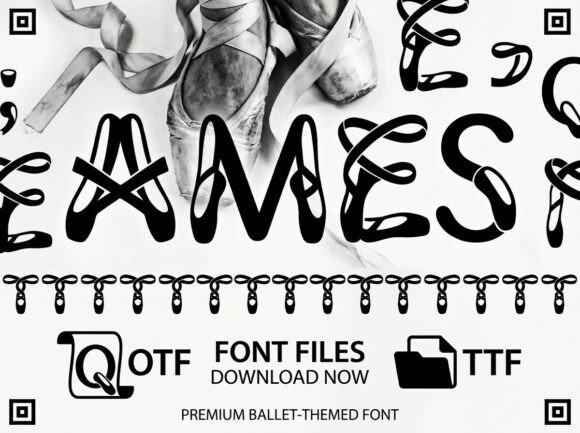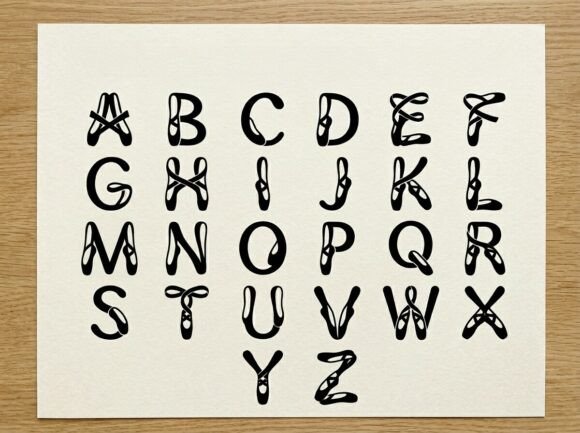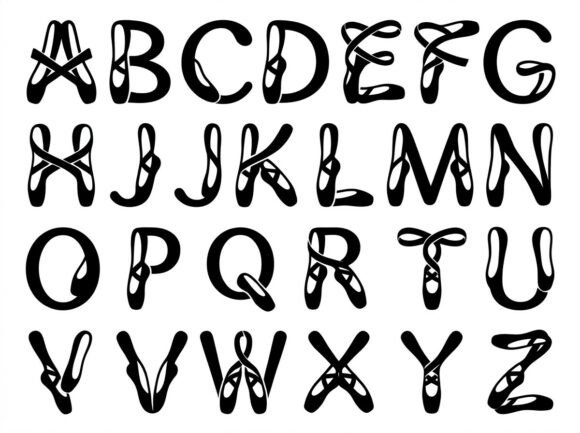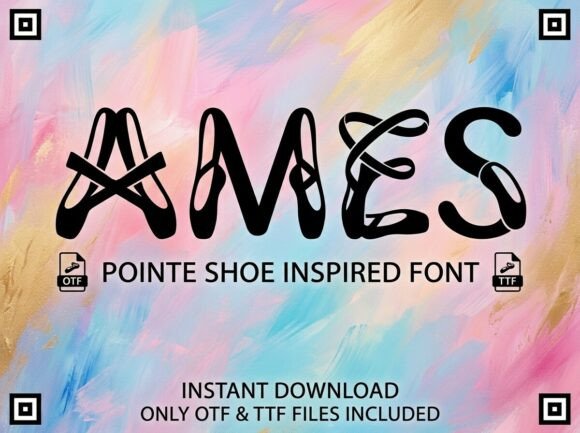
Introducing Ames Font: A Stunning Decorative Display Font
Are you tired of using the same old fonts for your designs? Do you want to add a touch of uniqueness and creativity to your work? Look no further than Ames Font, a decorative display font that is sure to turn heads. In this article, we’ll take a closer look at what makes Ames Font so special and how it can elevate your designs to the next level.
Ames Font is a stunning decorative display font designed to be the center of attention. With its unique artistic elements and strong visual personality, this font is perfect for creators who want to break away from the ordinary. Whether you’re working on a bold headline, artistic logo, or creative packaging, Ames Font is versatile enough to make a lasting impression while maintaining a professional and polished finish.
⚠️ IMPORTANT NOTE BEFORE PURCHASE: Ames Font is an ALL-CAPS (Uppercase Only) display typeface. This means that it does not include lowercase letters. It is specifically designed for high-impact headlines, logos, and decorative initials where every letter is a work of art.
Ames Font is perfect for designers and crafters who want to add a touch of elegance and sophistication to their work. With its unique and artistic elements, this font is sure to make your designs stand out from the crowd. Here are just a few ways you can use Ames Font:
- Headlines and Titles – Use Ames Font to create bold and eye-catching headlines that demand attention.
- Logos and Branding – Create a lasting impression with a custom logo that showcases your brand’s personality.
- Packaging and Labels – Add a touch of elegance to your packaging and labels with Ames Font’s unique and artistic elements.
Tips for Using Ames Font
Here are a few tips for getting the most out of Ames Font:
- Use it sparingly – Ames Font is a decorative display font, so use it sparingly to make a lasting impression.
- Experiment with colors and textures – Ames Font looks great with bold colors and textures, so don’t be afraid to experiment and find the perfect combination for your design.
- Pair it with a simple font – Pair Ames Font with a simple font to create a striking contrast that will make your design stand out.